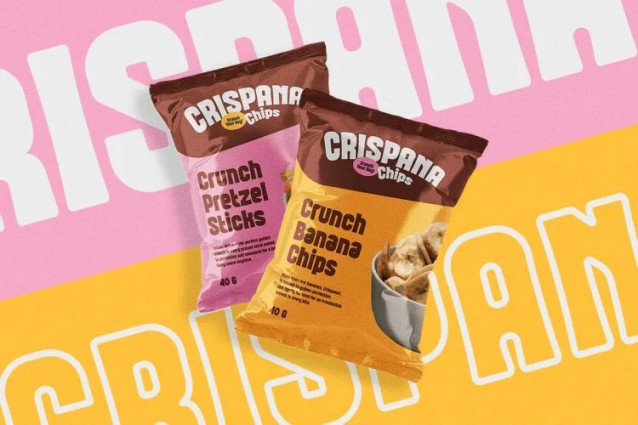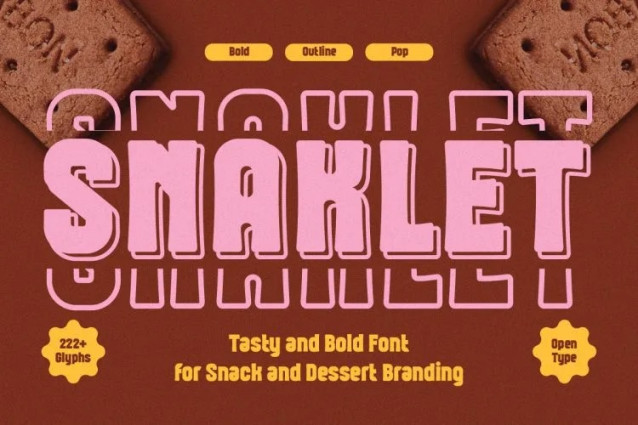
Snaklet Display Font
Snaklet Display Font is a bold handwritten display font crafted to elevate snack and dessert packaging with a flavorful and friendly vibe. Its chunky curves and dynamic strokes give off a deliciously playful and energetic feel—perfect for catching eyes on shelves or scrolling screens.